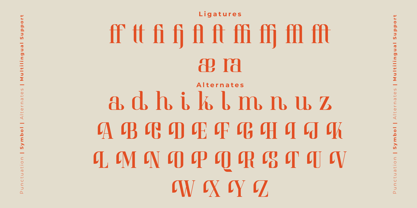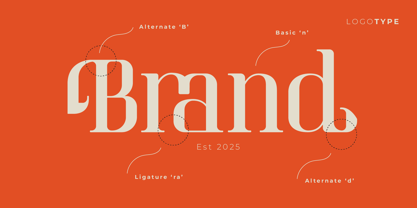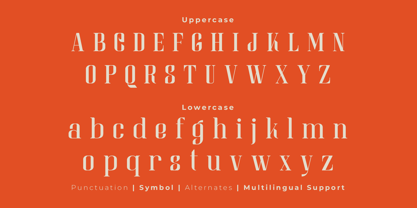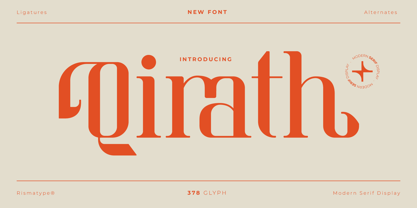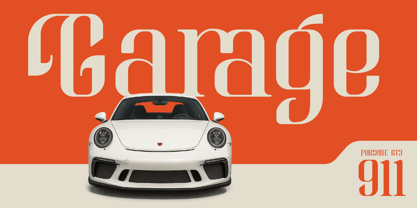
# 🔶 Qirath
Category: Modern Serif Display Typeface (Elegance Refined with a Bold Edge)
Tagline: ✒️ Elegant | 💼 Powerful | 🪶 Expressive | 🔮 Timeless
## 🌟 A Modern Serif for Stories That Command Attention
Looking for a typeface that blends classic elegance with modern edge?
Meet Qirath, a sophisticated modern serif display font designed to evoke strength, luxury, and artistic flair. With sharp contrast and finely sculpted serifs, Qirath brings narrative power to headlines, logos, and editorial layouts.
## 🔑 Key Features
* ✒️ High-contrast letterforms with elegant, modern serifs
* 🎨 Graceful curves paired with crisp terminals for dramatic effect
* 🧩 Rich in ligatures and stylistic alternates for creative typography
* 🌐 Multilingual support (Latin Extended and smart diacritics)
* 📐 Optimized for both print and screen with pixel-level precision
## 💼 Perfect For
* 📰 Editorial designs and magazine headlines
* 💍 Luxury branding and fashion labels
* 🎨 Creative portfolios and visual identities
* 📚 Book covers and premium packaging
* 📱 Elegant social media graphics and quotes
> Qirath blends beauty and boldness, speaking with grace and leaving a lasting impression.